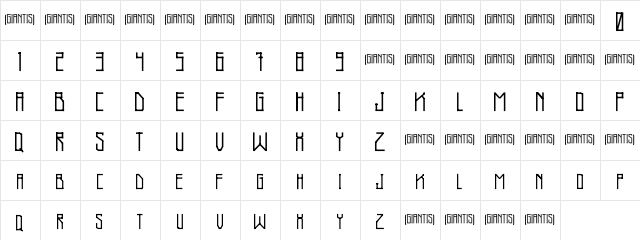
Giantis-Demo Demo Font Preview
Giantis-Demo Demo
Giantis-Demo Demo Font Details
Design Context for Giantis-Demo Typeface
Giantis-Demo offers clean, dependable letterforms without strong stylistic allegiance, making it a practical choice for designers who need flexibility.